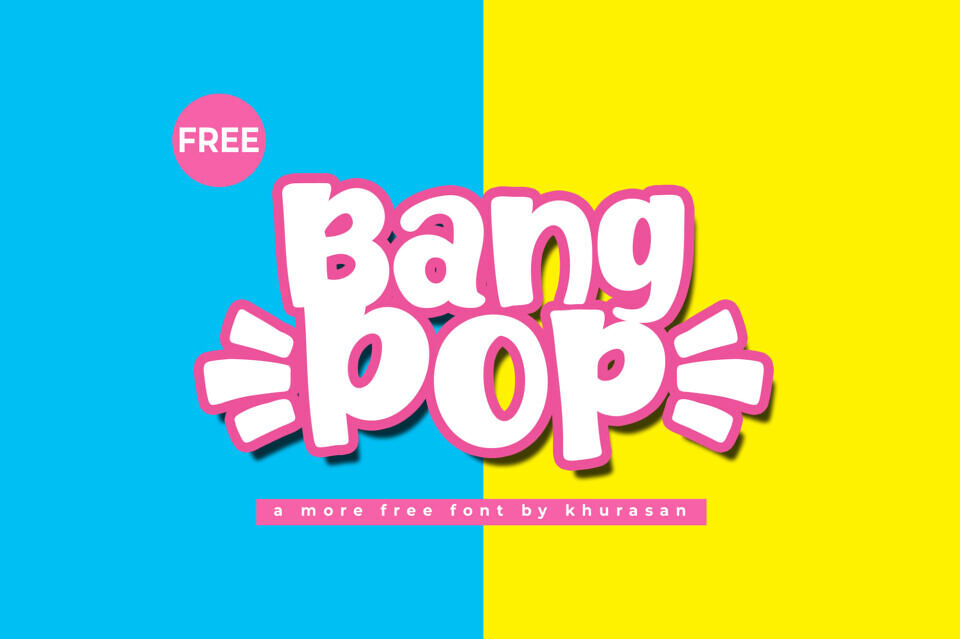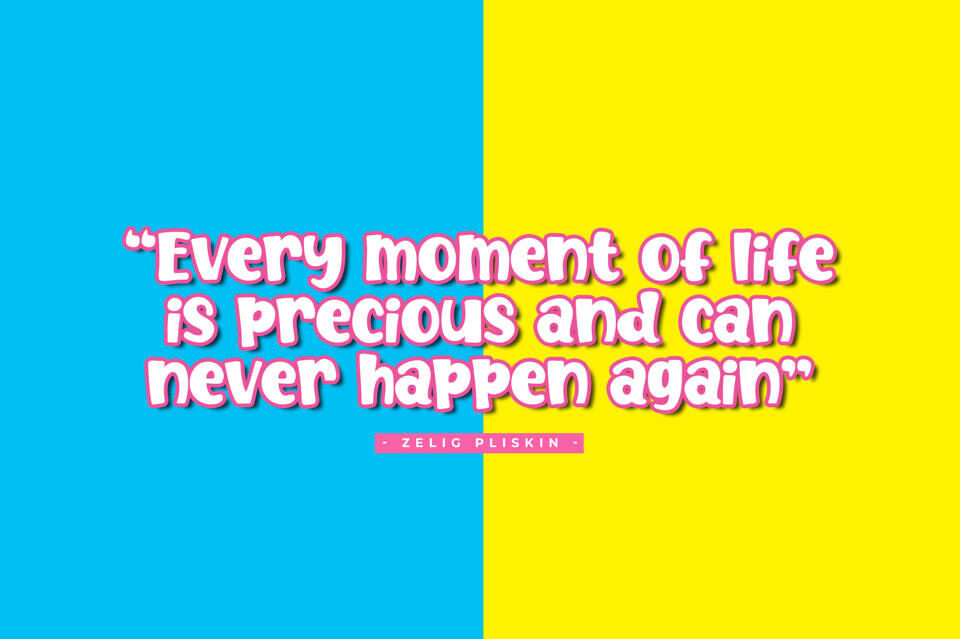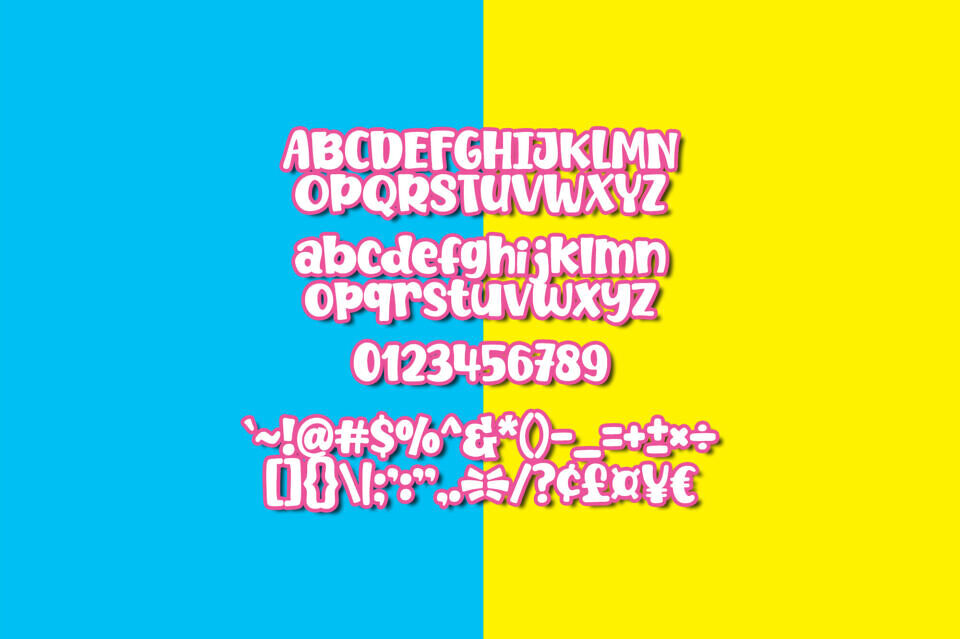
Add a dynamic boost to your designs with the Bangpop font, a vibrant display typeface that radiates energy. Inspired by comic books and pop art, its thick, rounded letters convey movement and impact.
Perfect for eye-catching projects like YouTube thumbnails, posters, and children’s book covers, Bangpop’s bold personality shines in fun, larger-than-life branding, gaming graphics, and social media content, making it ideal for grabbing attention with bright, contrasting colors.